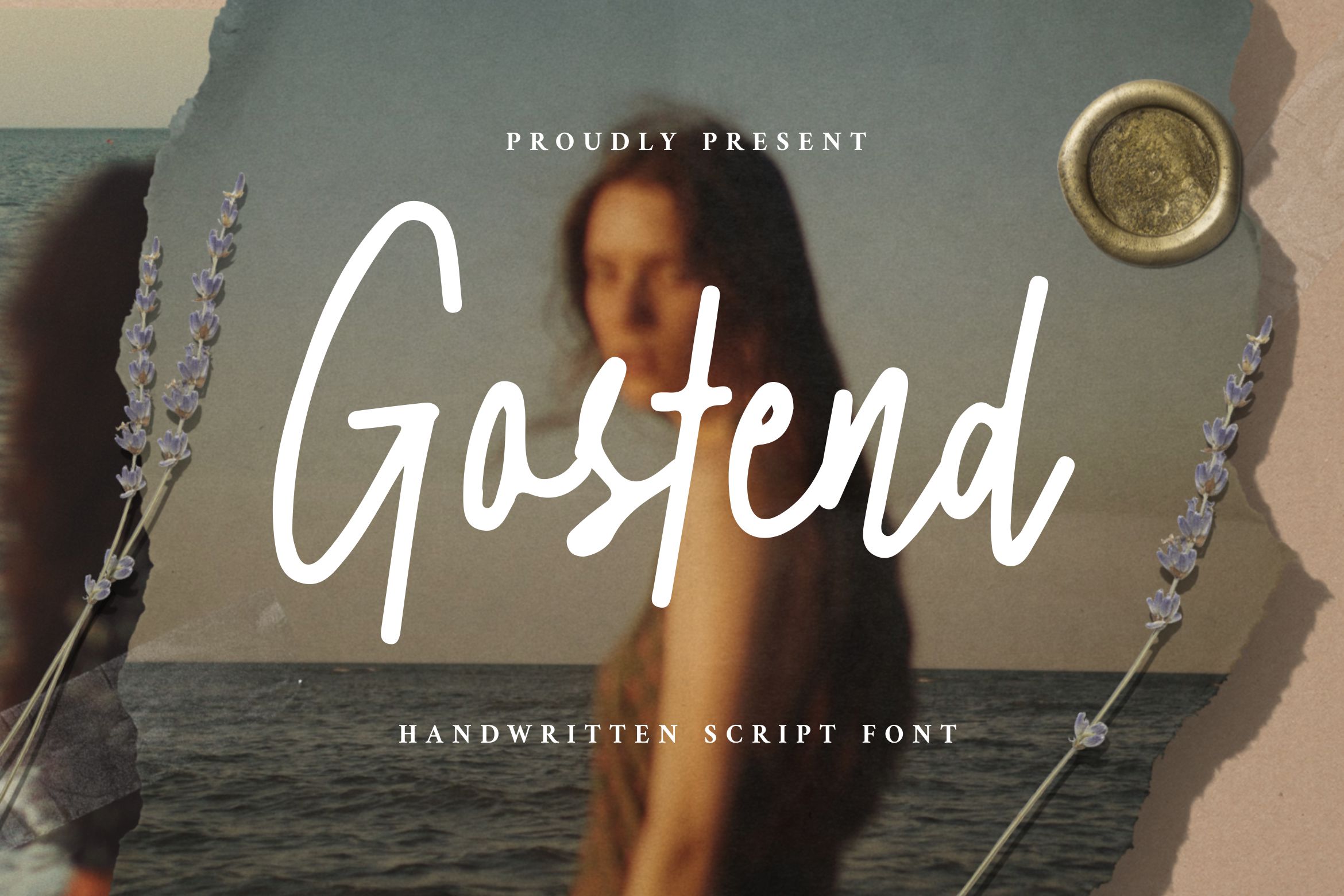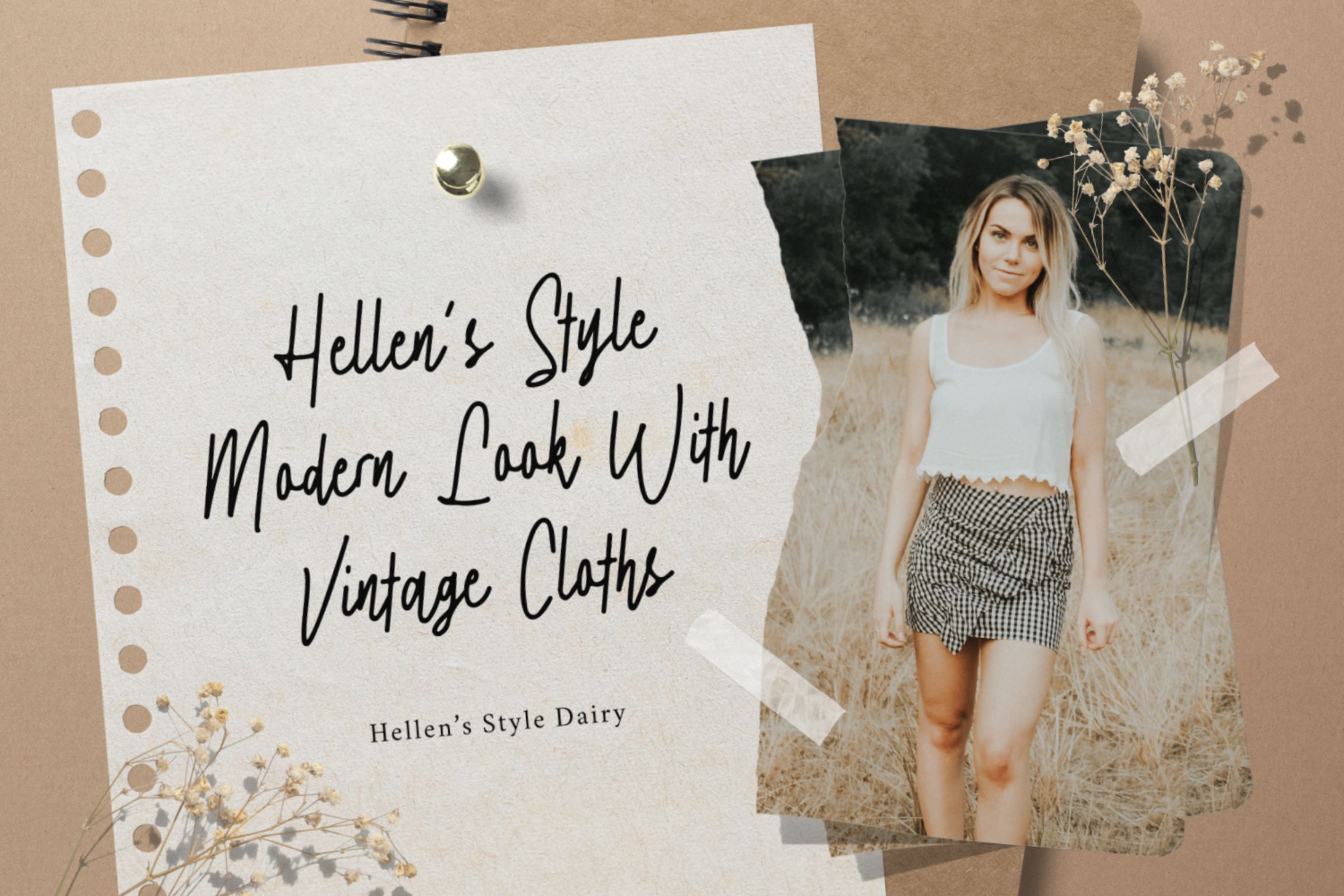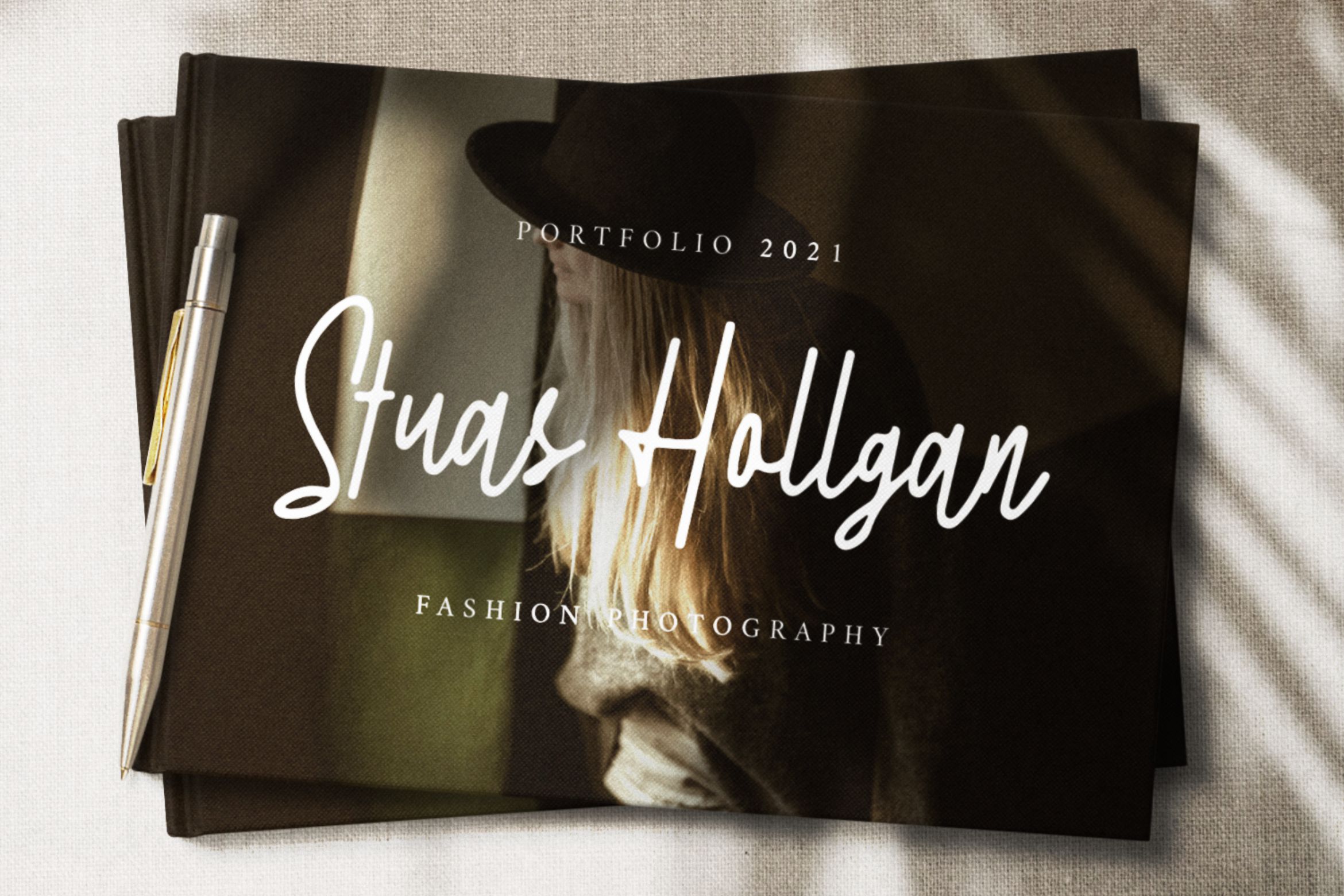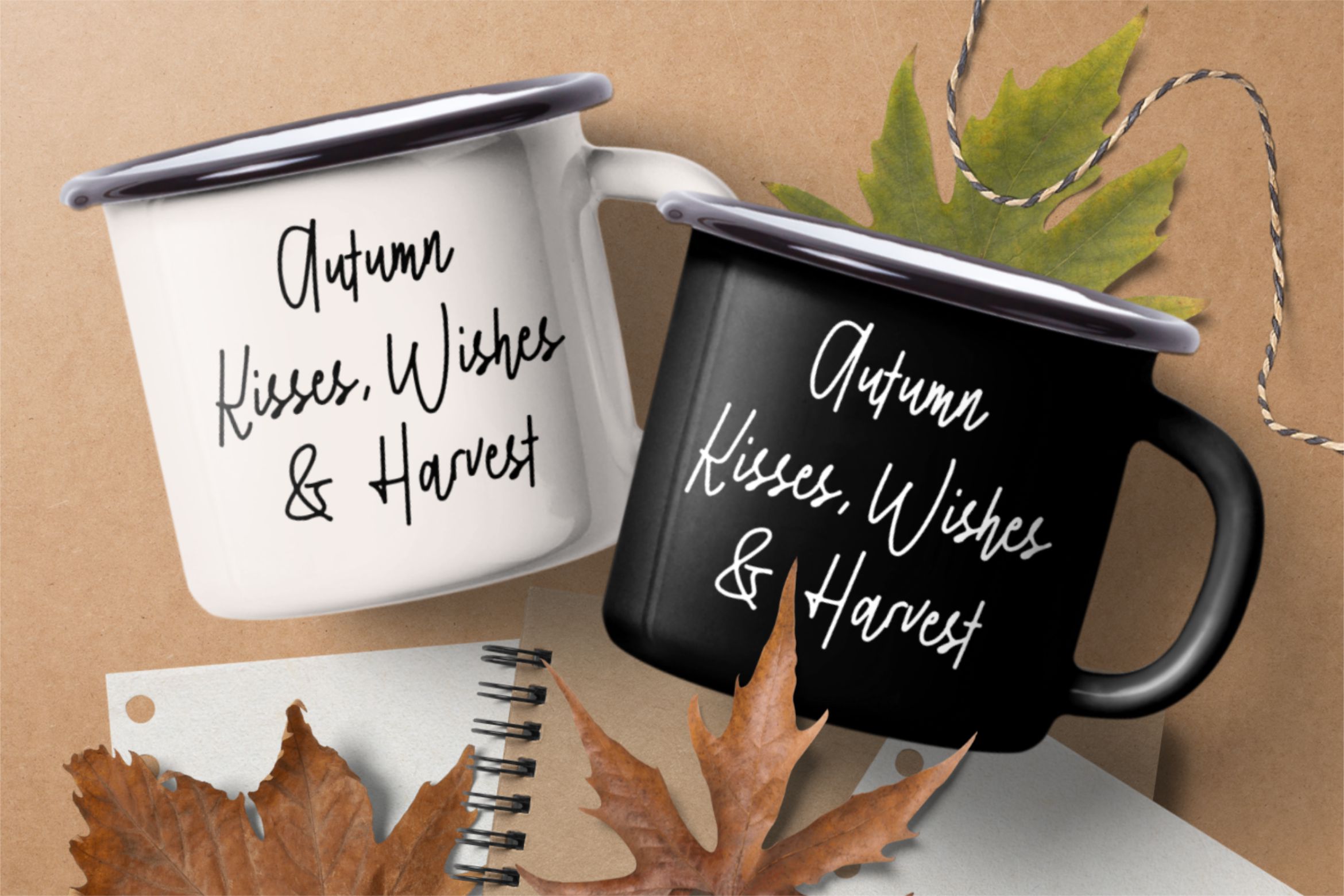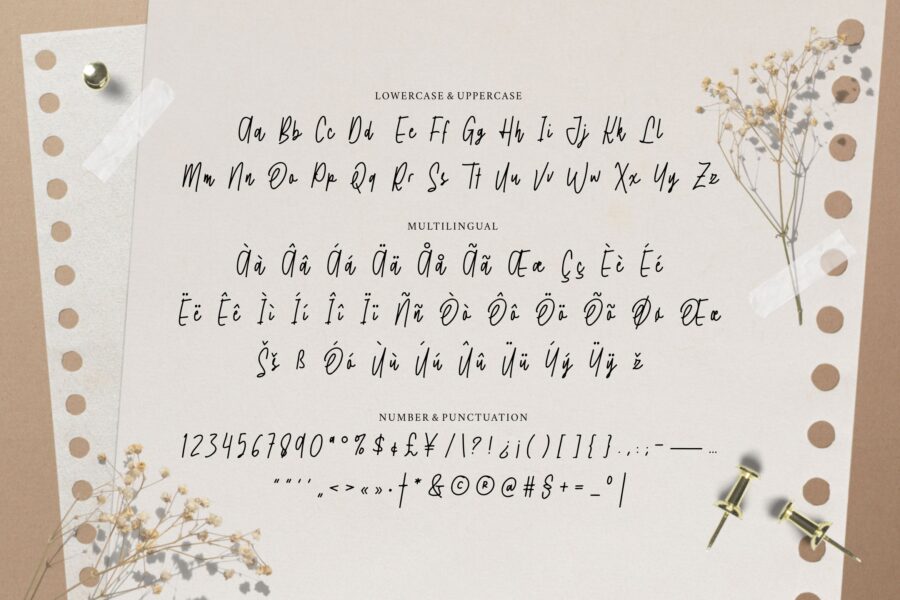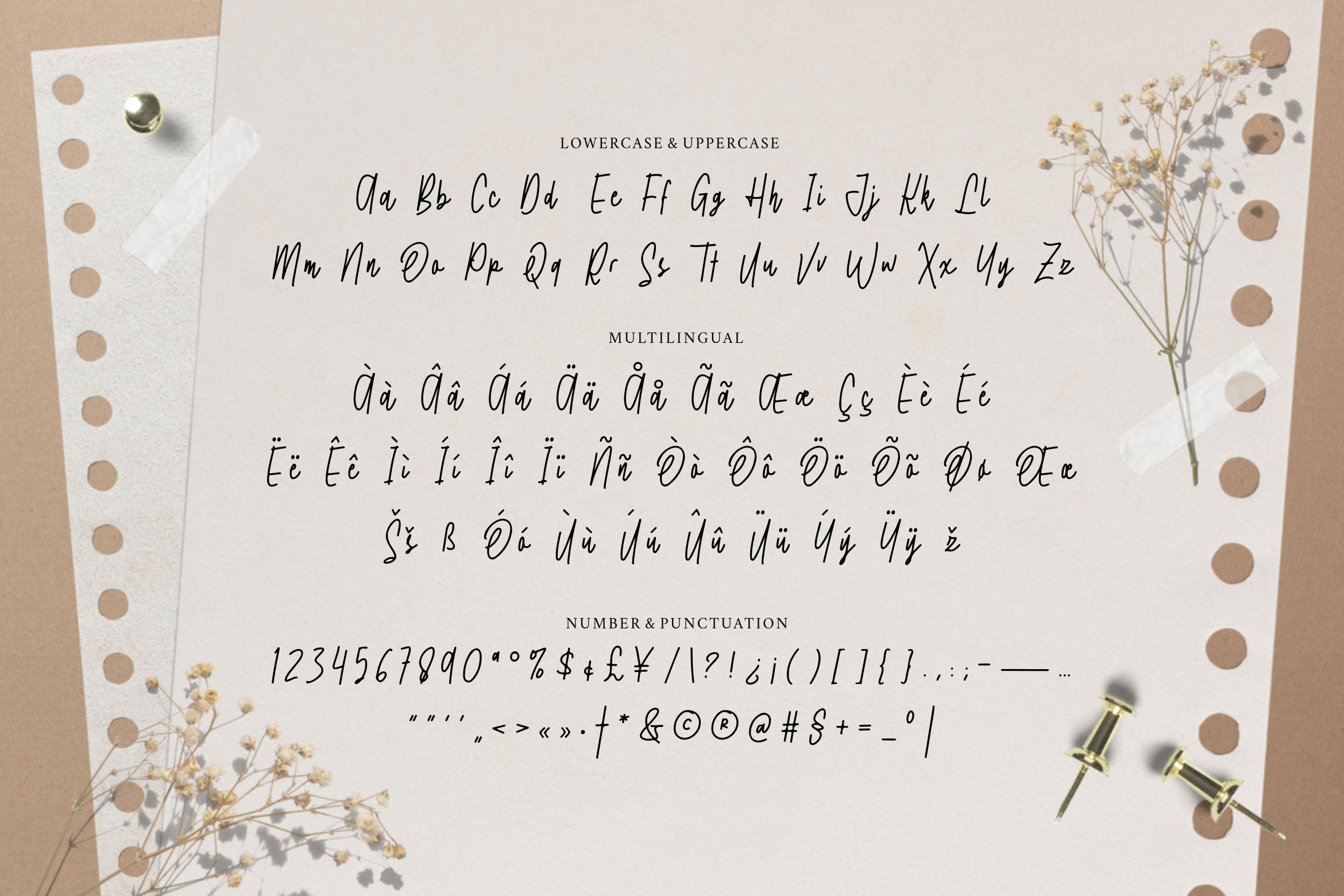
Gostend is a handwritten script font that beautifully blends elegance and authenticity. Its organic letterforms and flowing strokes create a natural handwriting feel, perfect for personal branding, photography portfolios, wedding invitations, social media quotes, and lifestyle product designs. This font exudes a feminine, graceful charm that’s ideal for both minimalist and vintage aesthetics.
Gostend comes with full multilingual support and a variety of punctuation marks, making it highly versatile across different languages and design needs. Whether you’re creating product packaging or editorial content, Gostend adds a personal, sophisticated touch that elevates your message with warmth and personality.
Gostend